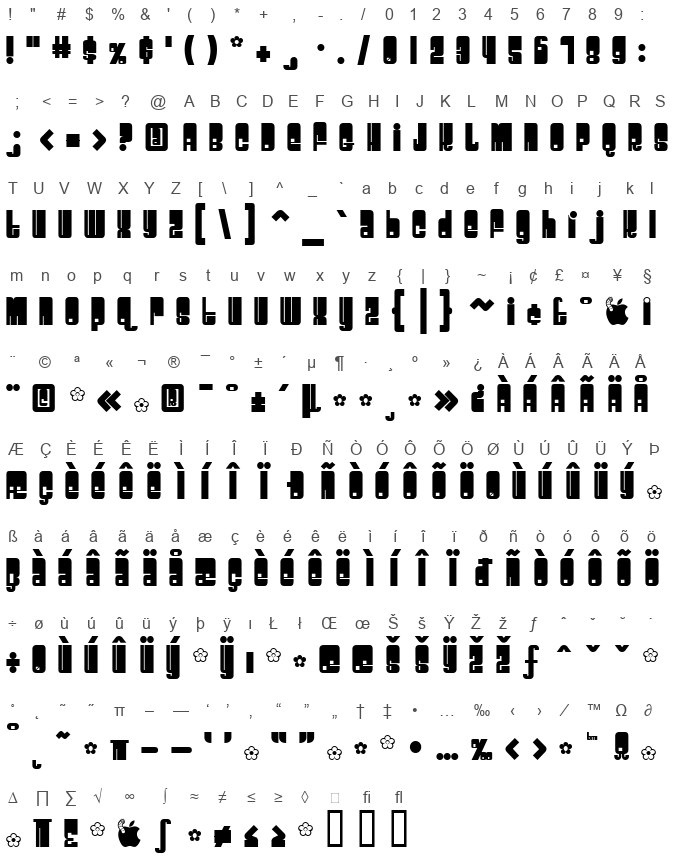
The Spacebeach font by Fontalicious is a unique typeface that conjures images of retro science fiction and laid-back beach vibes in a playful and inventive blend. This font stands out with its distinct characteristics that seem to draw inspiration from the futuristic aesthetics of the mid-20th century, mixed with the laid-back, fun-loving sensibility of surf culture. It's an intriguing mash-up that makes Spacebeach not just a font but a statement piece for any design.
Character-wise, Spacebeach is highly stylized with a nod to the geometric forms and clean lines typical of modernist design, yet it retains an element of whimsy that keeps it approachable and fun. The letters might feature rounded edges, asymmetrical shapes, or unexpected angles, all of which serve to imbue the font with a sense of movement and playfulness. It's easy to imagine this font being used in contexts ranging from vintage sci-fi movie posters to contemporary beach party flyers, such is its versatility.
The charm of the Spacebeach font lies in its ability to straddle different worlds – it is at once futuristic and nostalgic, structured yet free-spirited. This makes it particularly appealing for designers looking to evoke a specific era or attitude without sacrificing uniqueness or creativity. Whether it's for branding, headline text, or decorative purposes, Spacebeach by Fontalicious offers a delightful option that is bound to make any project stand out. Its unique blend of influences makes it a rare find in the crowded world of typography, offering an artistic statement that is both evocative and joyful.
Spacebeach